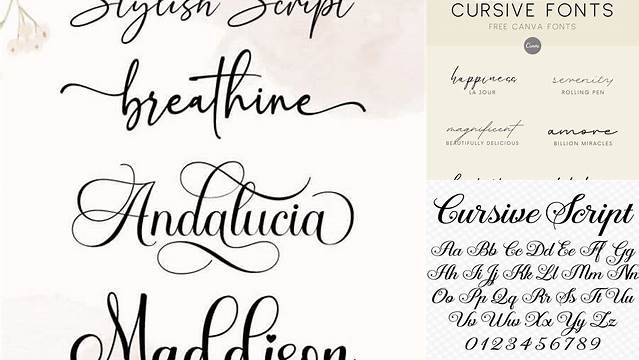
Cursive Fonts In Word: Ultimate Guide
Hey guys! Are you ready to dive into the wonderful world of cursive fonts in Word? Cursive fonts, with their flowing and elegant style, can instantly elevate the look and feel of your documents, from invitations and letters to creative projects and even professional presentations. In this article, we'll explore everything you need to know about using these beautiful fonts in Microsoft Word, including how to find, install, and effectively use them to enhance your work. We'll cover a variety of topics, including the best cursive fonts available, how to customize them, and some creative ways to incorporate them into your designs. So, grab a seat, and let’s get started on this typography journey!
What are Cursive Fonts, and Why Use Them?
So, what exactly makes cursive fonts so special, and why should you consider using them? Cursive fonts, also known as script fonts, are designed to mimic handwriting. They typically feature connected letters that create a sense of flow and sophistication. Unlike basic fonts like Arial or Times New Roman, which are clean and straightforward, cursive fonts add a touch of personality, elegance, and artistry to your text. This is why these fonts are so popular when you want your words to stand out.
There are many reasons to choose cursive fonts, but here are some of the most common uses and advantages. Firstly, cursive fonts excel at making a statement. They can add a personal touch to your work, making it feel more inviting and engaging. This is perfect for wedding invitations, greeting cards, and personal letters, where you want to convey warmth and sincerity. Secondly, they’re great for creating a visually appealing look. The curves and flourishes of these fonts can make your text more attractive and eye-catching, which is ideal for logos, headlines, and titles. You can use them to grab the reader's attention and make your content more memorable. Furthermore, cursive fonts can also be used to evoke specific emotions. Depending on the font, they can convey feelings of elegance, sophistication, playfulness, or nostalgia. This versatility makes them a powerful tool for designers and writers looking to create a specific mood. Also, many people love the way these fonts look because they are a throwback to the beauty of handwritten correspondence. So, in short, using cursive fonts can significantly enhance the aesthetic appeal of your documents and projects.
Best Cursive Fonts for Different Occasions
Now, let's talk about some of the best cursive fonts available and when to use them. Choosing the right font can significantly impact the message you want to convey. Here are some popular options, along with their ideal applications:
- For Elegance and Formal Occasions: If you're aiming for a classic and sophisticated look, fonts like “Edwardian Script ITC” or “French Script MT” are excellent choices. These fonts have graceful curves and are perfect for wedding invitations, formal letters, or certificates. They exude a sense of timeless beauty and refinement.
- For a Modern and Stylish Vibe: For a more contemporary feel, consider fonts like “Segoe Script” or “Allura.” These fonts have a more relaxed and flowing style, which works well for stylish invitations, social media graphics, or modern design projects. They offer a balance between readability and artistic flair.
- For a Playful and Casual Look: If you want a fun and informal touch, fonts like “Brush Script MT” or “Comic Sans MS” (yes, it can be used!) can be great. These fonts are ideal for greeting cards, children’s projects, or anything where you want to add a touch of whimsy and personality. Remember to use these fonts sparingly and appropriately.
- For Professional Documents: While cursive fonts can add personality, it’s important to choose them carefully for professional documents. Fonts like “Lucida Handwriting” can be a good choice, as they are more legible and less ornate. However, make sure to use these sparingly. Always consider the overall readability of your document and choose fonts that don’t distract from the content.
When choosing a font, always consider the context, the audience, and the message you want to communicate. Also, remember to test the font on different sizes to ensure it’s readable and that the design is visually appealing.
Customizing Cursive Fonts in Word
Once you've selected your cursive font in Word, you can further customize it to fit your specific needs. Word offers several options to adjust the appearance of your text. Here are the key customization features:
- Font Size: Adjusting the font size is one of the most fundamental ways to customize your text. Use the font size dropdown in the “Home” tab to increase or decrease the size of your cursive text. Make sure to choose a size that is both visually appealing and easy to read. Remember that cursive fonts can be harder to read than standard fonts, so consider using a larger font size, especially in headings or important sections.
- Font Style: The font style options allow you to change the appearance of your text with options like bold, italic, and underline. Use bold to emphasize key words or phrases. Italics can be used to add a touch of elegance or to highlight certain parts of your text. Underlining can add a vintage look, but use it sparingly to avoid making your text too cluttered.
- Font Color: Change the color of your cursive text to match your project's theme or to make your text stand out. Use the font color tool in the “Home” tab to select from a range of colors. The color can significantly change the look and feel of your text. Experiment with different colors to see what works best for your design. Just make sure there is enough contrast between the text and the background to ensure readability.
- Spacing: Word allows you to adjust the spacing between letters, words, and lines. The line spacing options can impact the readability of your document. Experiment with different spacing to improve the visual appeal of your cursive text, especially since cursive fonts can sometimes look cramped if the spacing is too tight.
- Kerning: Kerning adjusts the space between individual letters. In some cases, cursive fonts might have uneven spacing between certain letter pairs. You can use the kerning feature (available in the “Advanced” tab of the font settings) to fine-tune the spacing and ensure the text looks balanced and pleasing to the eye.
Creative Ways to Use Cursive Fonts in Your Documents
Ready to get creative? Here are some ideas for incorporating cursive fonts into your documents and projects:
- Invitations and Greeting Cards: Cursive fonts are perfect for creating elegant invitations and greeting cards. Use them for the names, dates, and special messages to give your cards a personal touch. Choose a font that matches the theme of the event or message you are conveying.
- Headlines and Titles: Make your headlines and titles stand out by using cursive fonts. They can grab the reader's attention and make your content more memorable. Just make sure to use a font that is easy to read, especially if the headline is long.
- Logos and Branding: If you're designing a logo, consider using a cursive font. It can give your brand a sophisticated and unique look. Choose a font that reflects the values and personality of your brand.
- Creative Projects: Cursive fonts can be used in a variety of creative projects, like scrapbooks, posters, and social media graphics. They add a touch of artistry and personality to your designs. Experiment with different font styles, colors, and sizes to create stunning visuals.
- Adding Emphasis: Use cursive fonts sparingly to highlight certain words or phrases in your documents. This can draw attention to important information and make your text more engaging. Just make sure not to overuse it to maintain readability.
Tips for Using Cursive Fonts Effectively
Using cursive fonts can significantly elevate the visual appeal of your documents, but there are some important things to keep in mind to ensure they are used effectively. First of all, legibility is key. Always prioritize readability. Select fonts that are clear and easy to understand, especially in large blocks of text. Avoid overly ornate fonts that may be difficult to read. Also, always consider the context. Choose the right font for the right occasion. Formal events might call for elegant fonts, while more casual projects might benefit from a more playful style.
Then, limit the use of cursive fonts. Use cursive fonts in moderation. Overusing them can make your document look cluttered and hard to read. Use them for headings, titles, or emphasis. Moreover, make sure to test the font size. Ensure that your chosen font is readable at the size you are using. Test it out on different sizes to see how it looks. Also, you should always pair cursive fonts with a complementary font. Combine cursive fonts with a simple, clean font for the body text to create a balanced and visually appealing design. Finally, make sure to proofread carefully. Cursive fonts can sometimes make it easier to miss typos, so always proofread your text before finalizing your document.
So, there you have it, folks! A complete guide to using cursive fonts in Word. By understanding how to find, install, and customize these fonts, you can create documents that are both beautiful and engaging. Whether you’re crafting wedding invitations, designing a logo, or simply adding a personal touch to your writing, cursive fonts are a versatile tool for enhancing your projects. Have fun experimenting with different fonts and styles, and happy designing! I hope you enjoyed this article! If you have any questions or need any further help, feel free to ask. Happy typing, everyone!